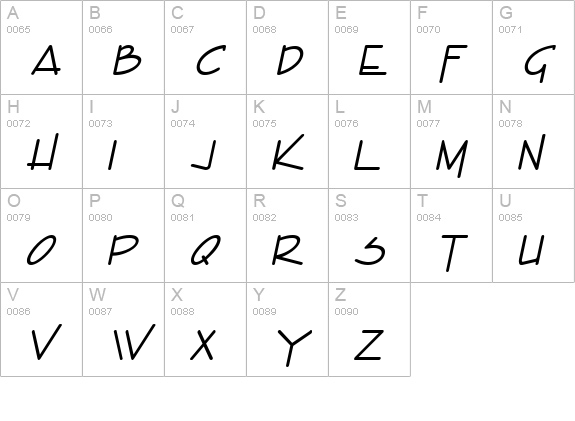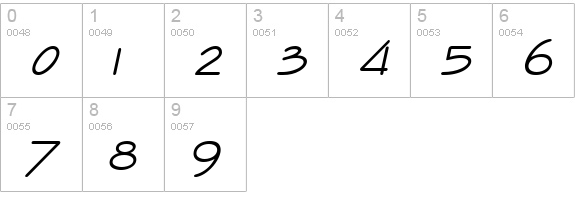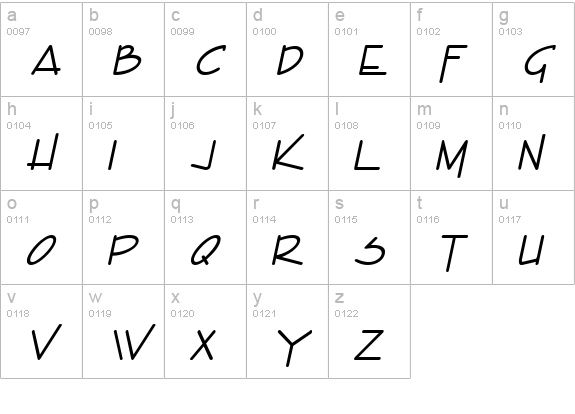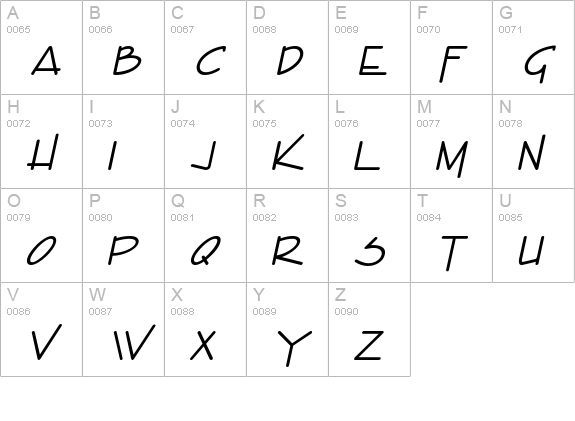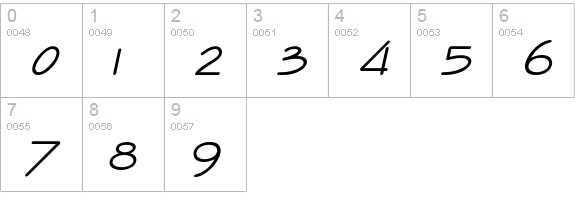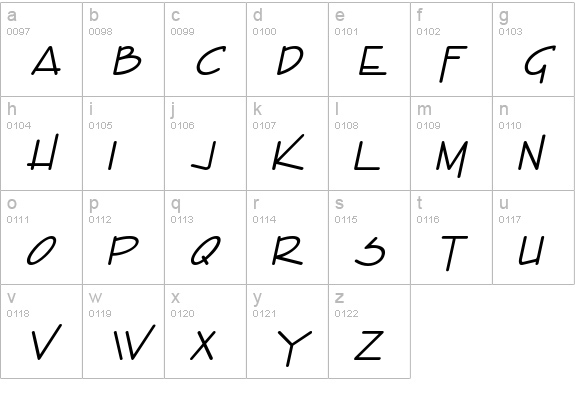
Enview Italic is a distinctive, italic variant in the Enview typeface family \xE2\x80\x94 well suited to design and typography projects.
Enview Italic is a sophisticated and elegant font that exudes a sense of modernity and style. Its sleek and flowing design adds a touch of refinement to any project, making it perfect for use in branding, advertising, and creative designs. The italicized form of this font gives it a unique and eye-catching appearance, making it stand out from the crowd. What makes Enview Italic even more appealing is that it is available for free download at FontsMarket.com. This means that you can easily access this stunning font and use it in your projects without any cost. With its versatility and beauty, Enview Italic is sure to elevate the visual appeal of any design and leave a lasting impression on viewers.